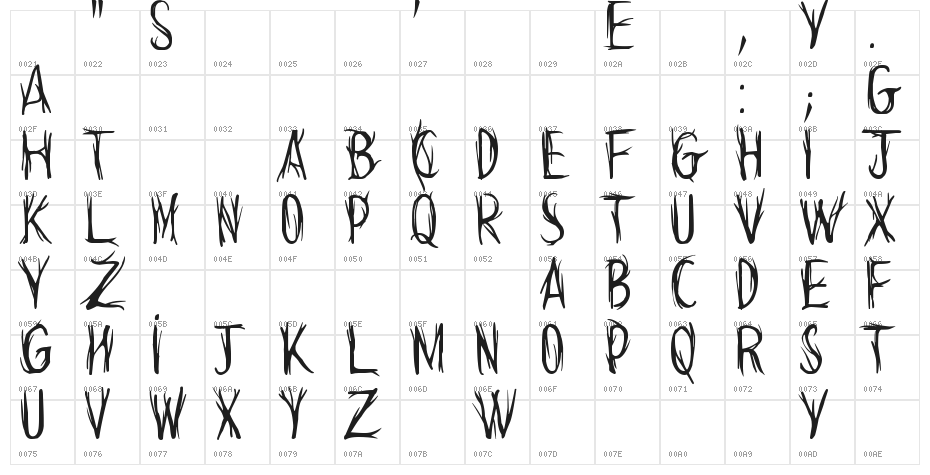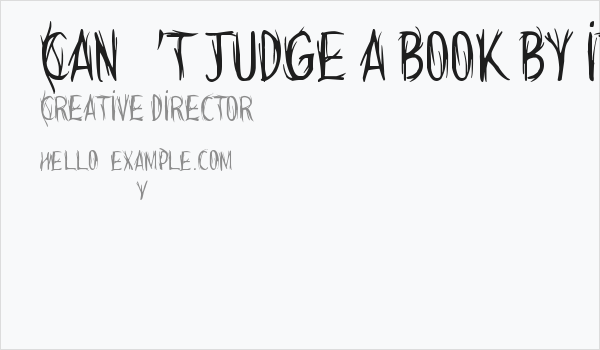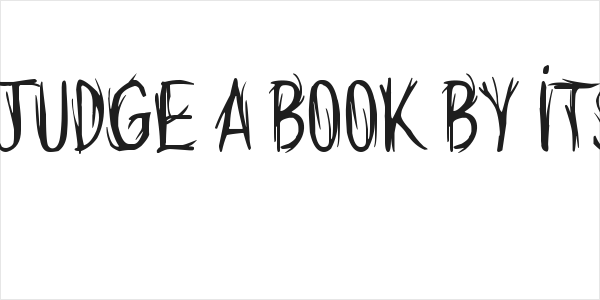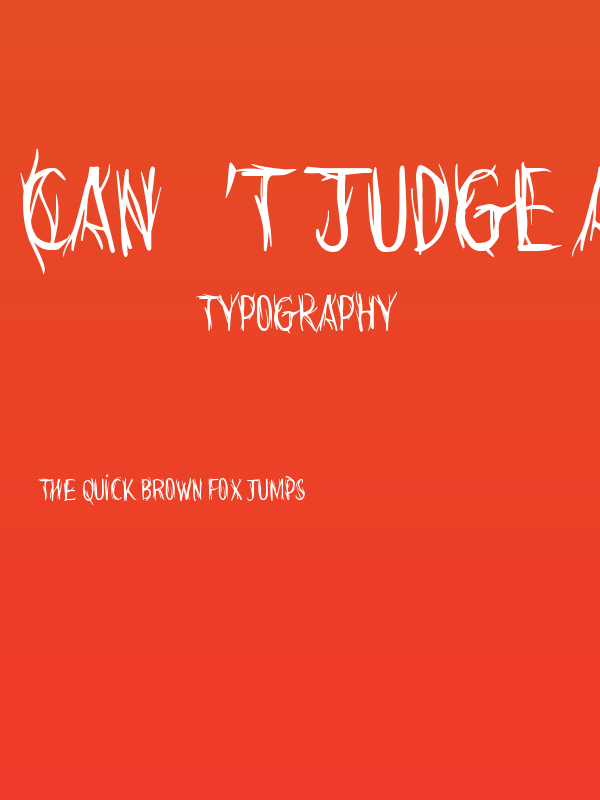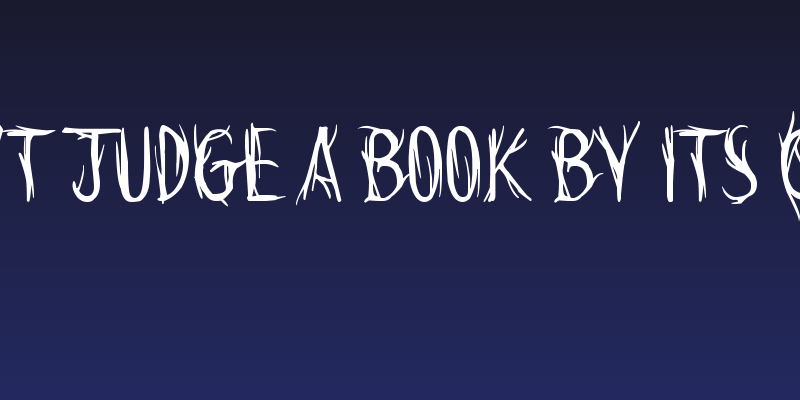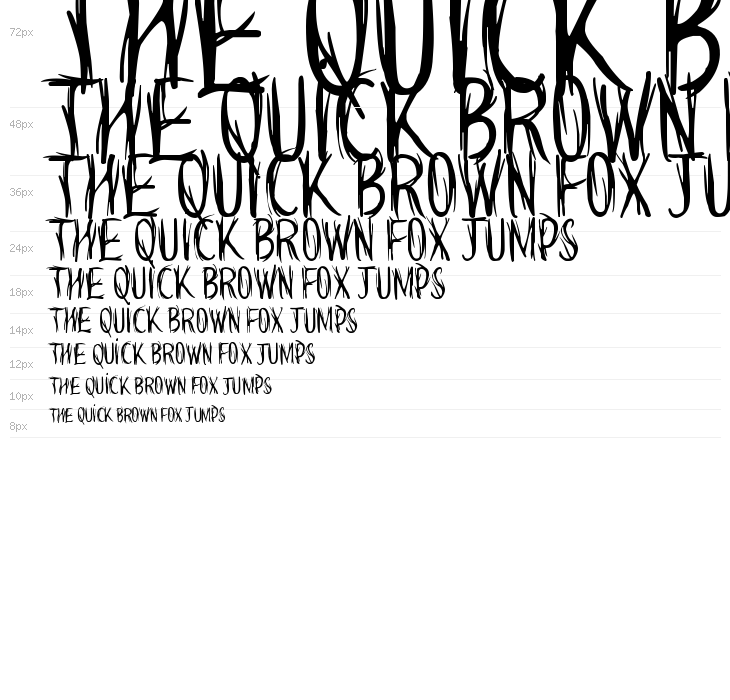
Can't judge a book by its cover Font
Can't judge a book by its cover Description
This font features a unique, jagged style reminiscent of twisted branches or thorns, creating a sense of mystery and intrigue. The characters are elongated with sharp, pointed edges, giving an eerie, organic feel. The uppercase and lowercase letters maintain a consistent theme, with each character appearing as if it has been crafted from natural elements. This design choice makes the font particularly striking and memorable. The numerals and special characters follow the same aesthetic, ensuring a cohesive look across all text elements. The font's distinct appearance makes it ideal for projects that require a dramatic or gothic touch.
| Overall Style | Gothic, Dramatic |
| Use Case | Headlines, Posters, Themed Invitations |
| Proposed Projects | Ideal for horror-themed posters, Halloween invitations, or any project needing a dramatic, gothic touch. |